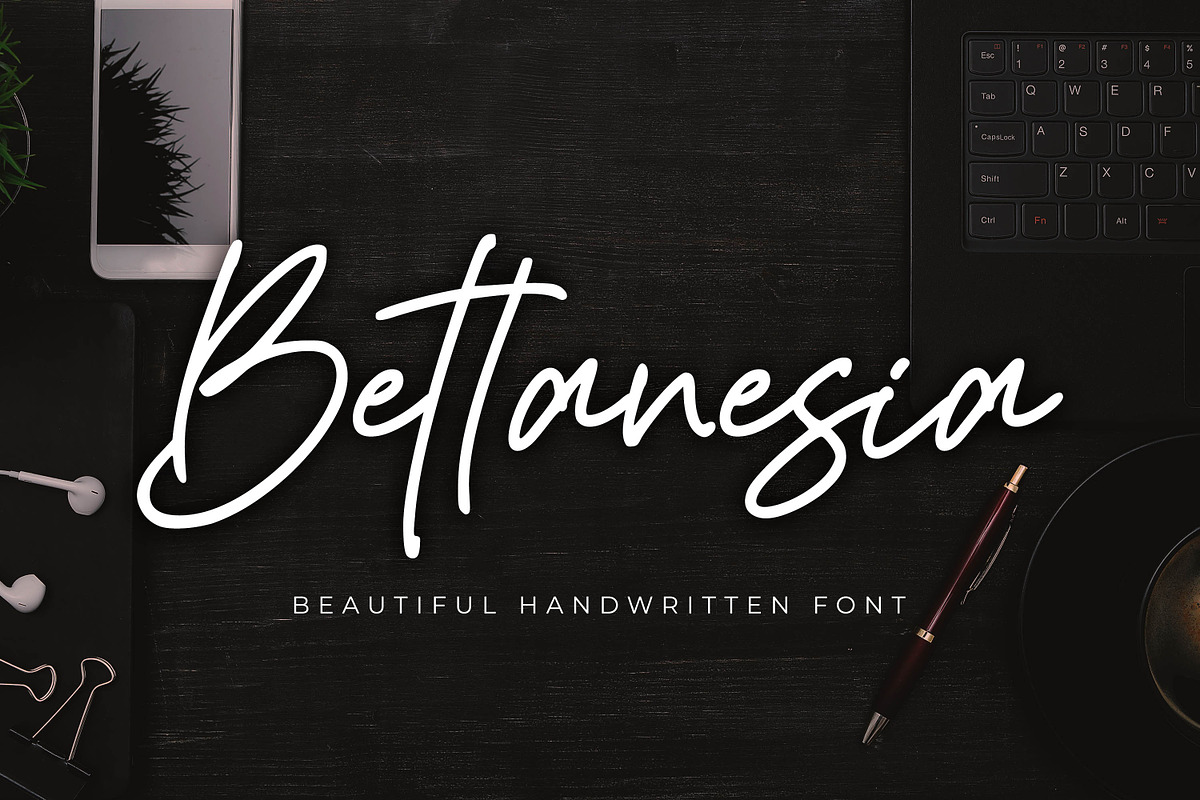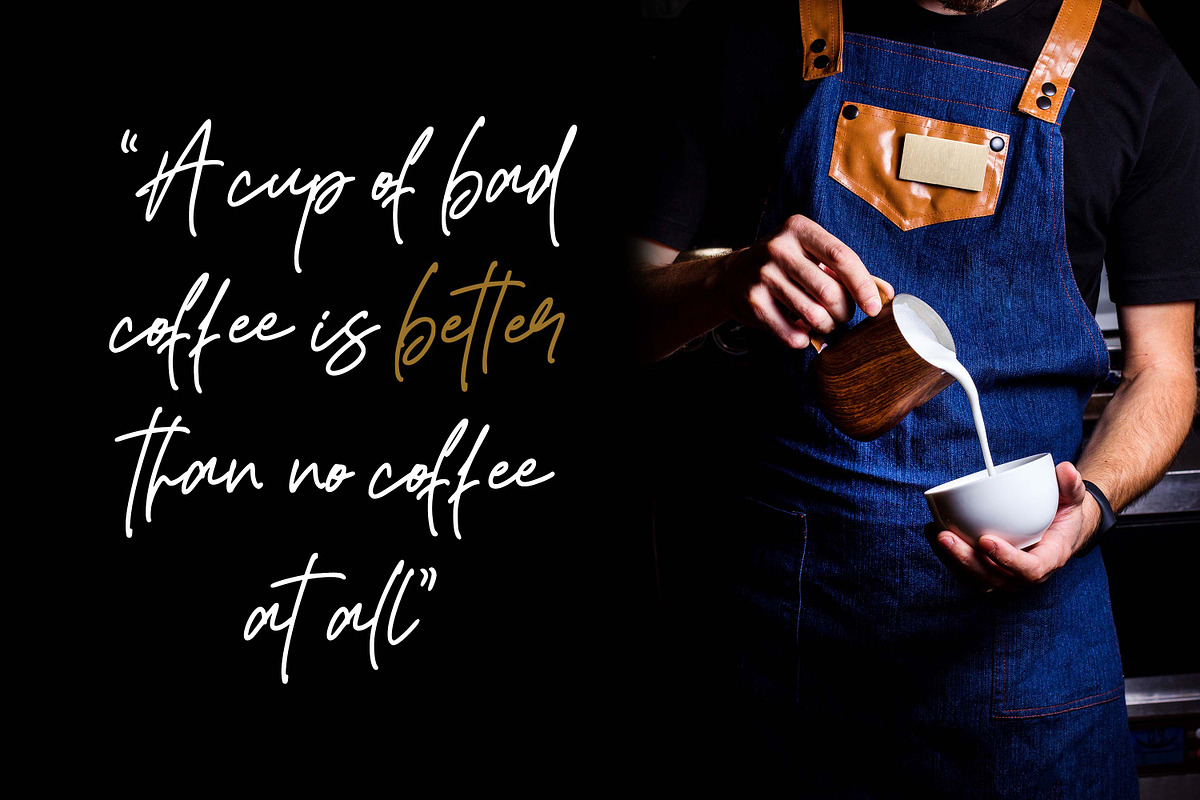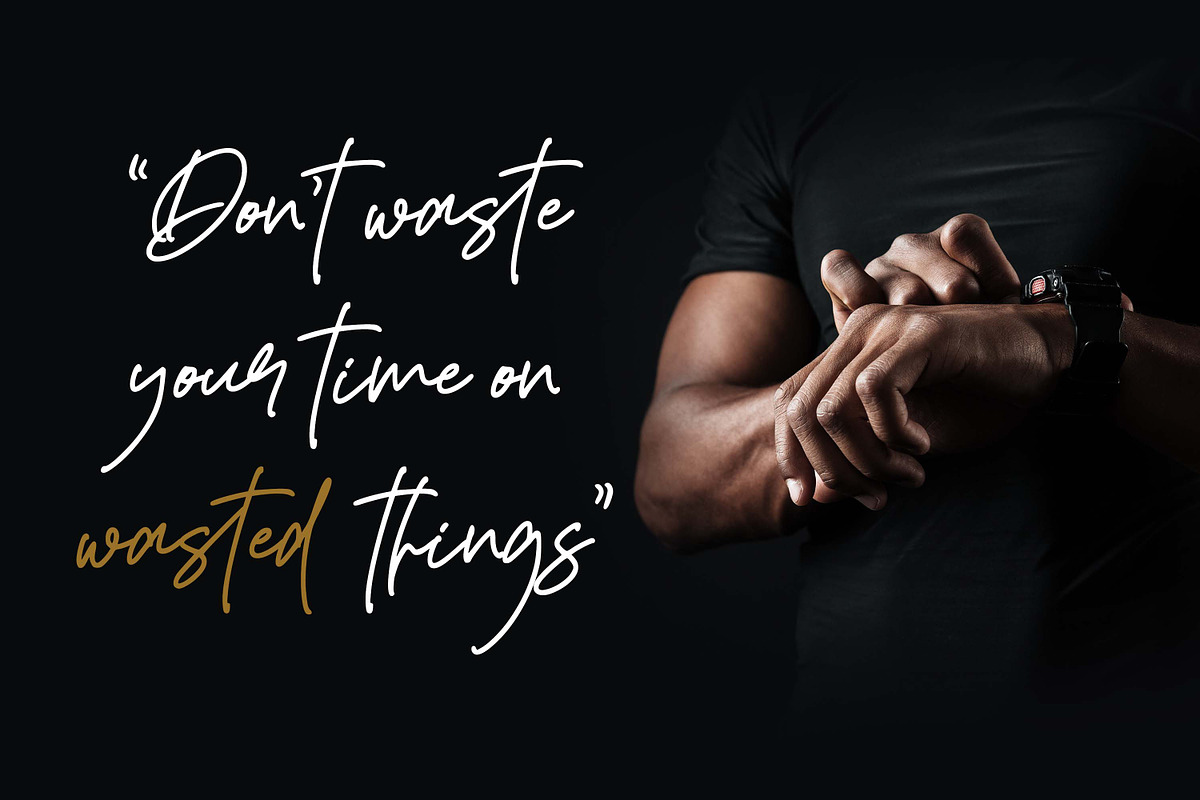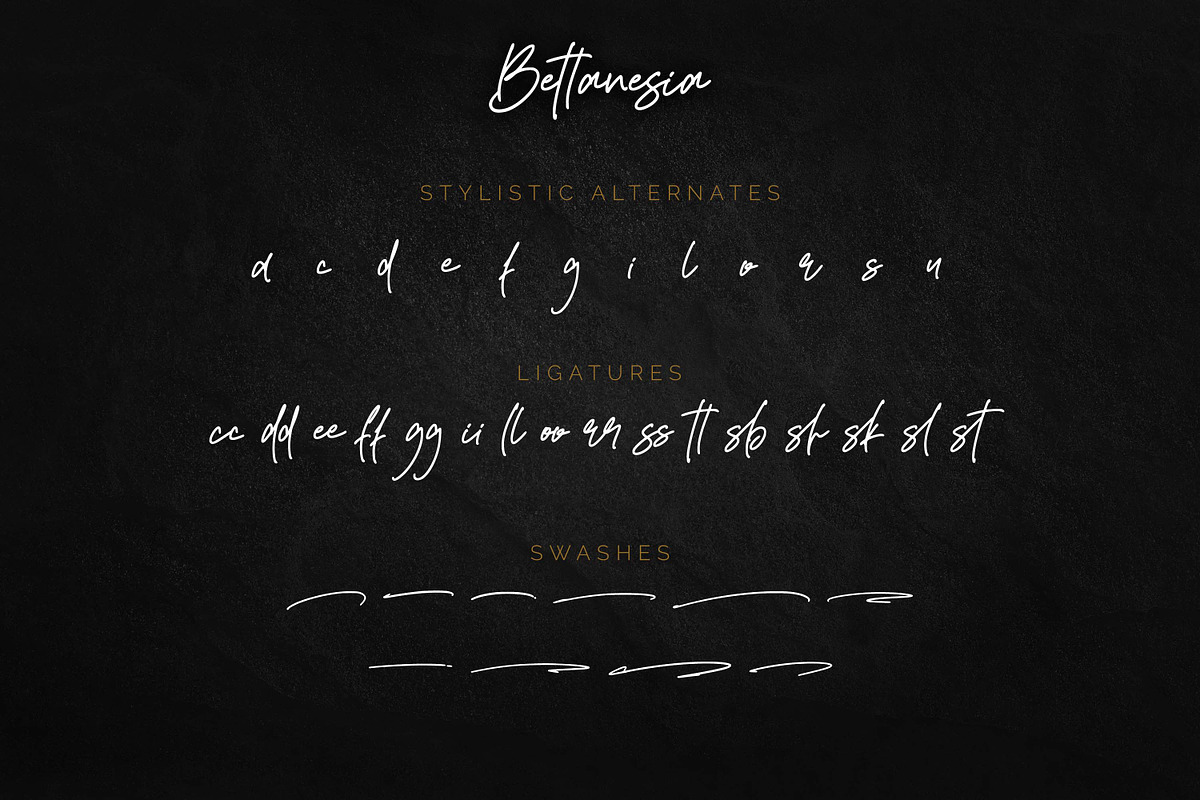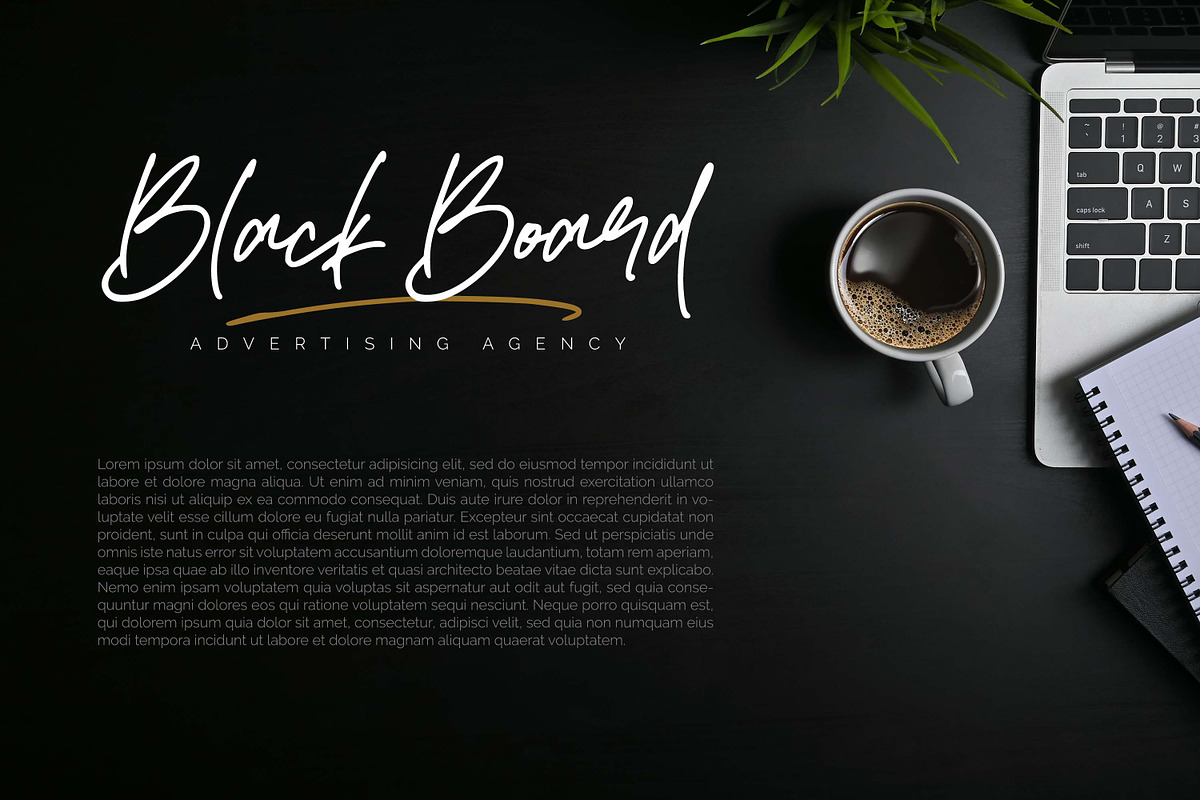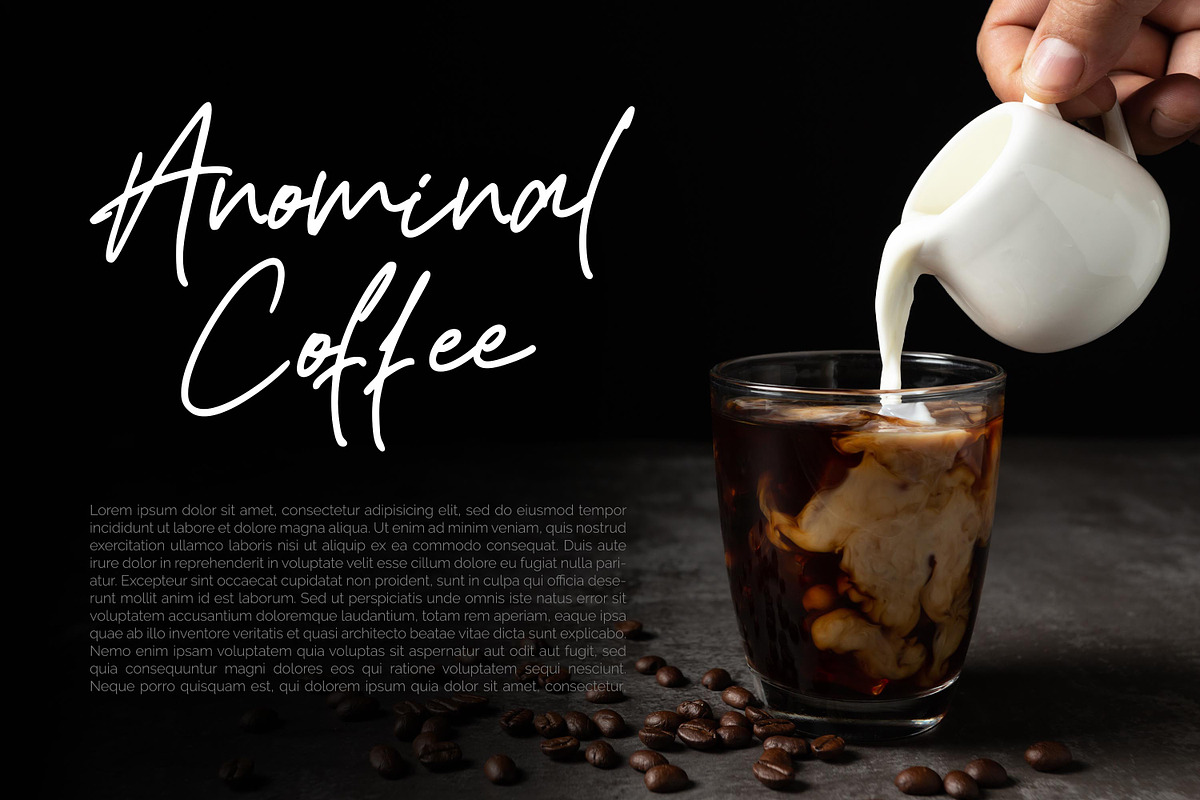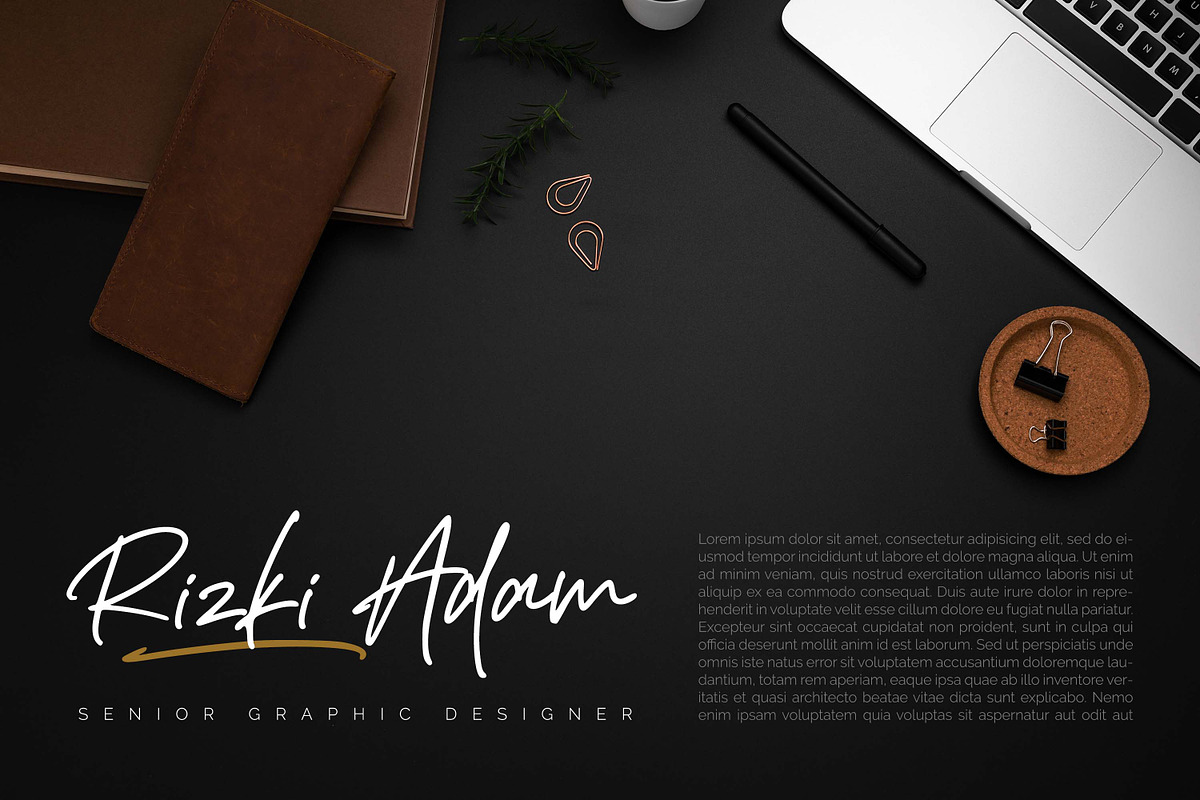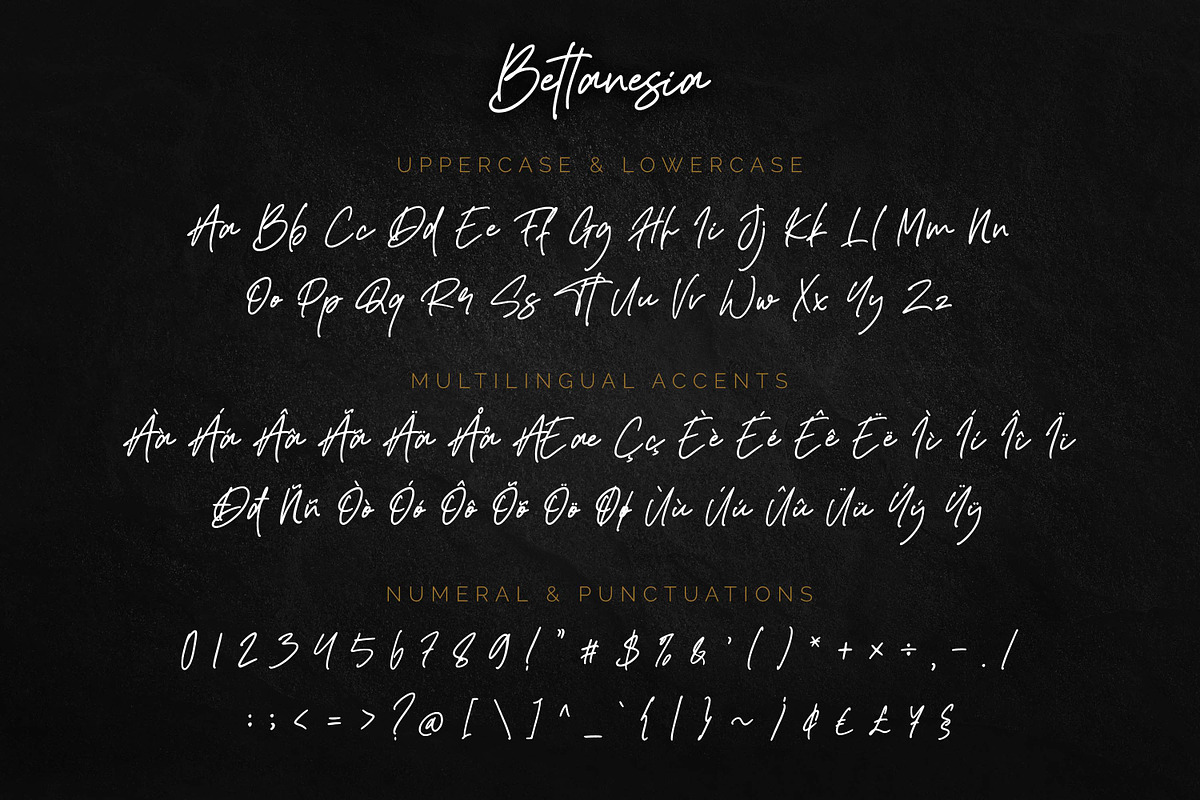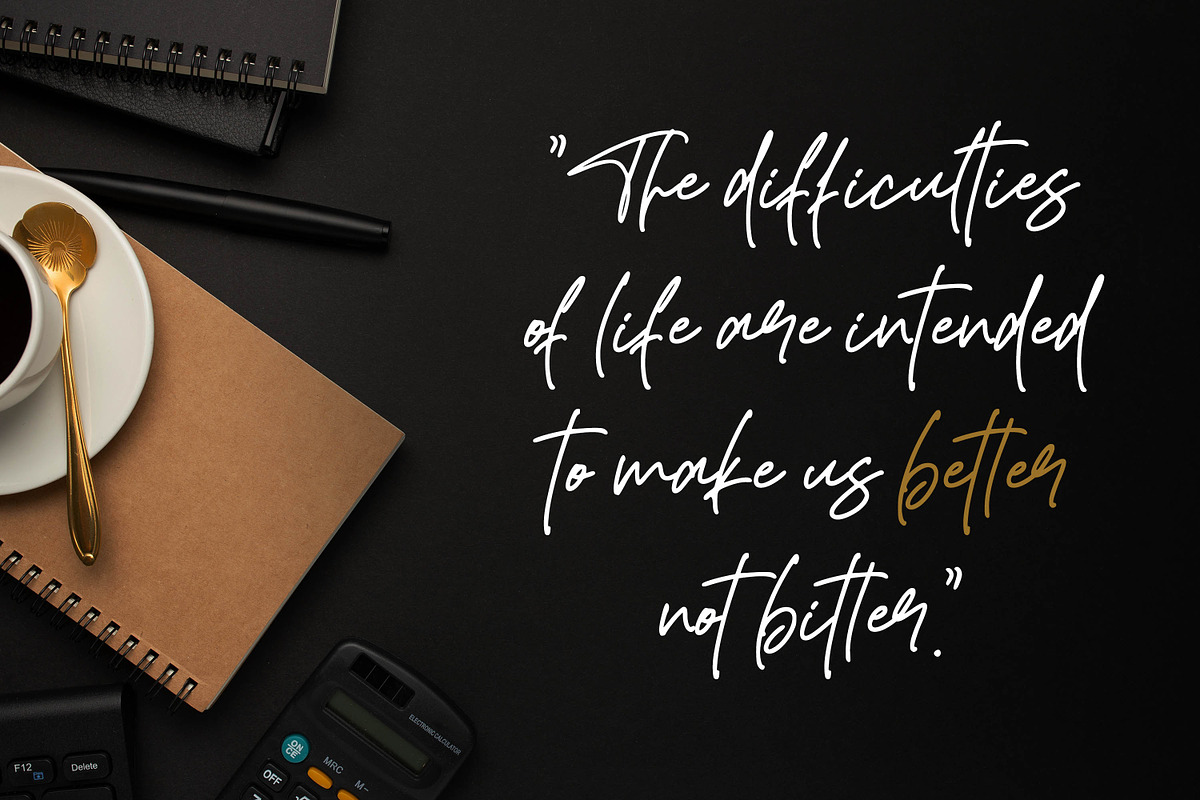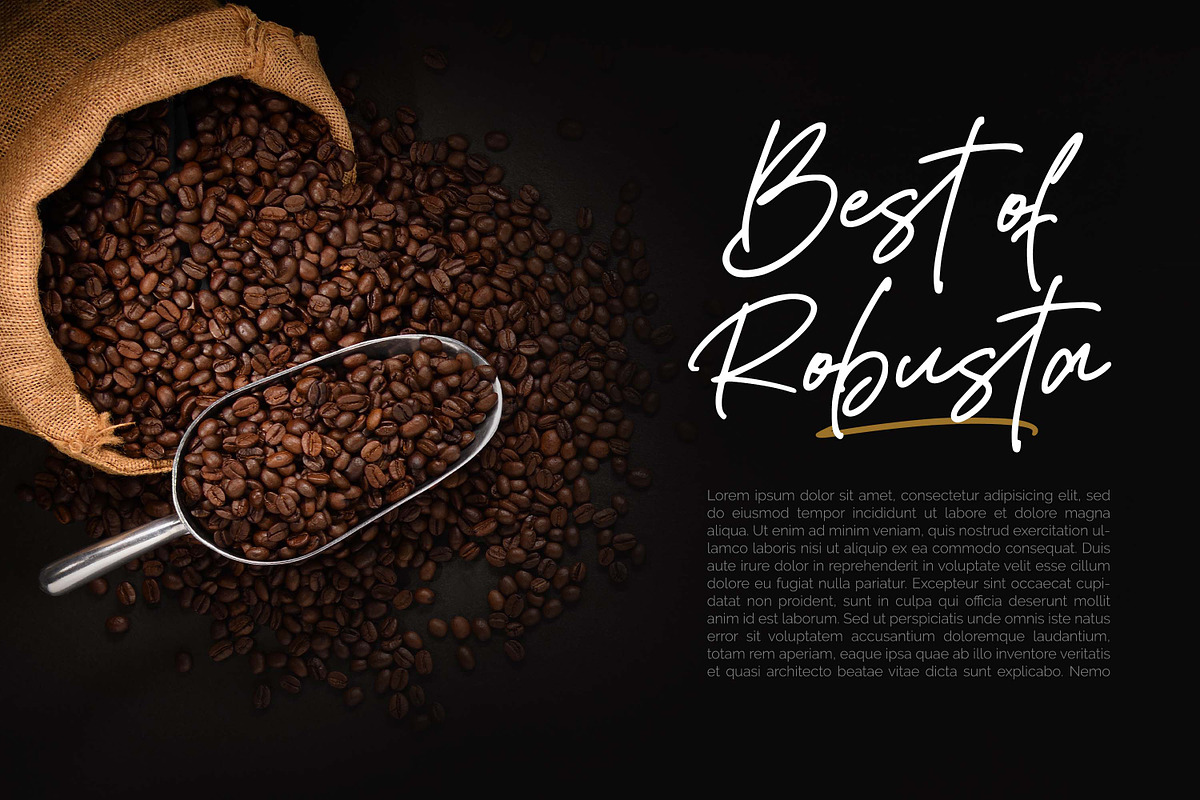
Bettanesia - Beautiful Handwritten
Bettanesia - Beautiful Handwritten and classy style, this font is great for your creative projects such as watermark on photography, and perfect for logos & branding, photography, invitation, watermark, advertisements, product designs, stationery, wedding designs,label, product packaging, special events or anything that need handwritting taste.
- Ligatures & Alternate